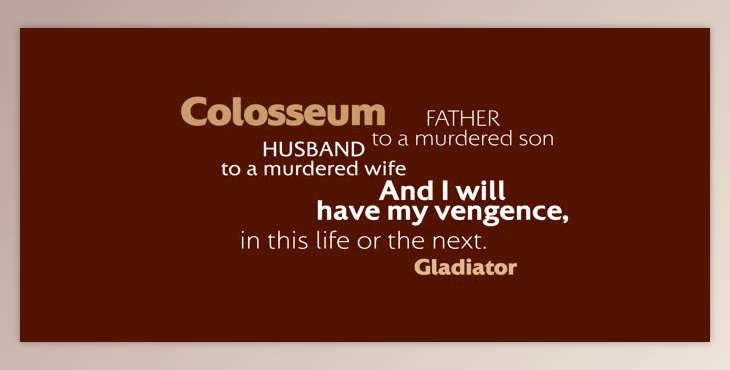
Colosseum is a uniquely designed sans serif based on the traditional Trajan Roman typeface. It features an evolved and Friz Quadrata-esque approach that lends to a more modern appearance but also an adaptable one. Colosseum, however, does not stray too far from its origins, as the appearance still looks like Colosseum as opposed to Colosseum looking like everything else. Colosseum is appropriately sans serif, and without its edges, one can expect Colosseum to be implemented with any non-indicative text but still maintain its rigid, unique appearance.
Colosseum is appropriate in print and online, and there are a few renderings that one would not want to render differently, as the appearance always holds up. Colosseum gets the job done, but also does so in a way that's unique to itself. Where it needs to be unique, it is - and where it needs to comply like a sans serif, it does. This font is a great choice for any typographer looking for a sans serif with a history and personality.